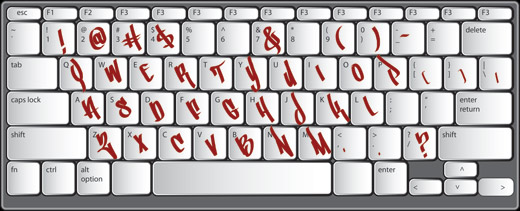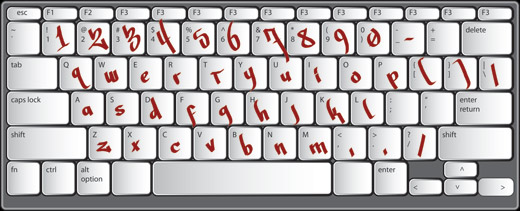
MadProps™
EXCLUSIVE! - All new Graffiti Font™
Classic & clean tag style lettering that's easy to read & flexible. Mad Props™ includes 2 full alphabets, full numbers, punctuation & other symbols. This style works well with outlines & effects.
MadProps Sample Graffiti Alphabet
MadProps Uppercase Letters
MadProps Lowercase Alphabet